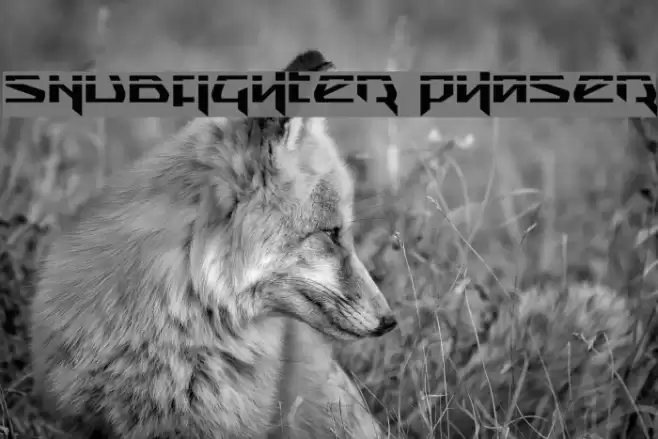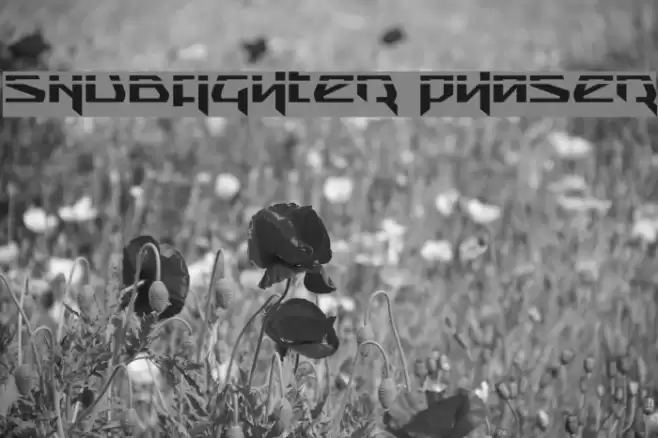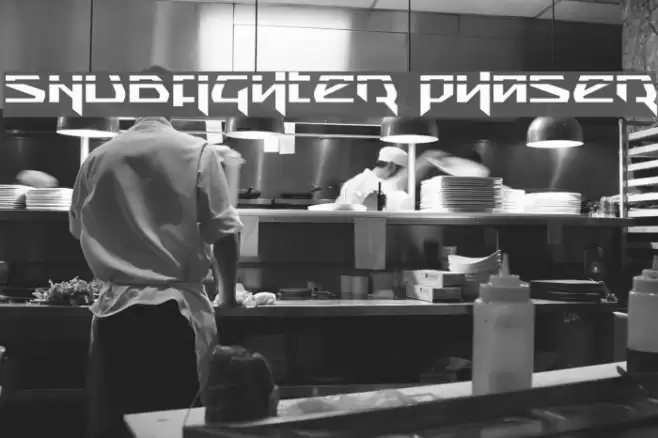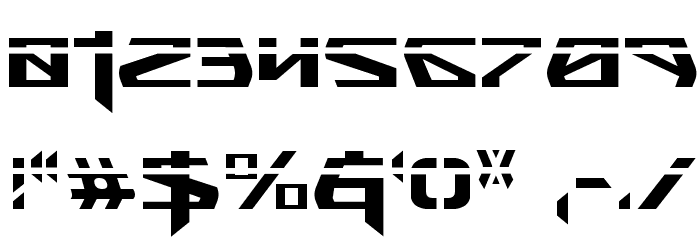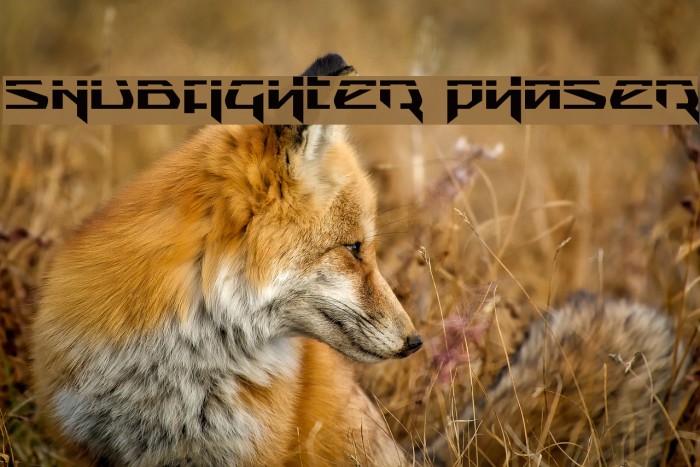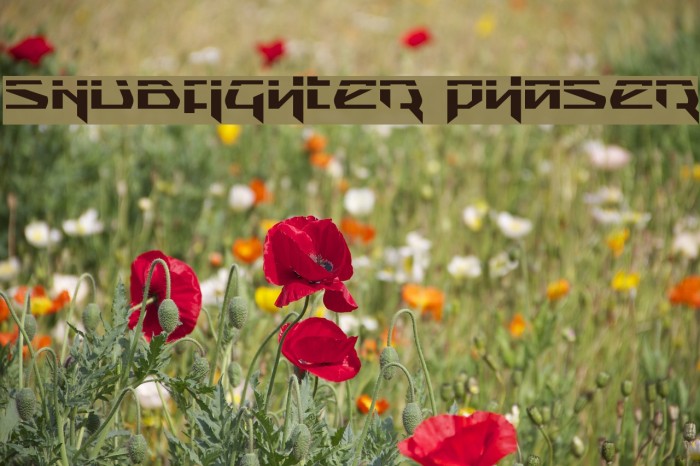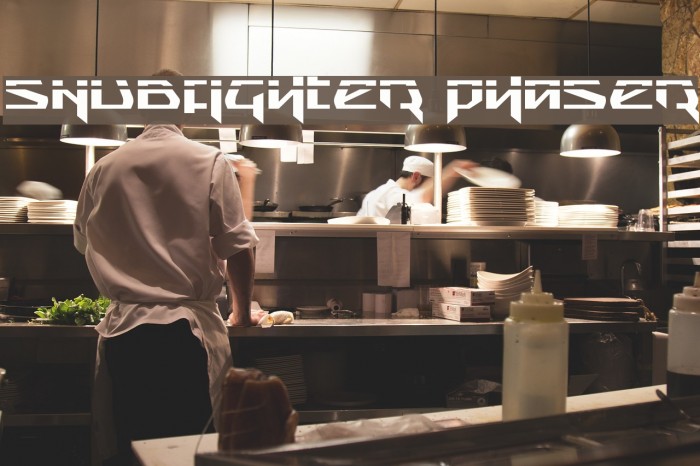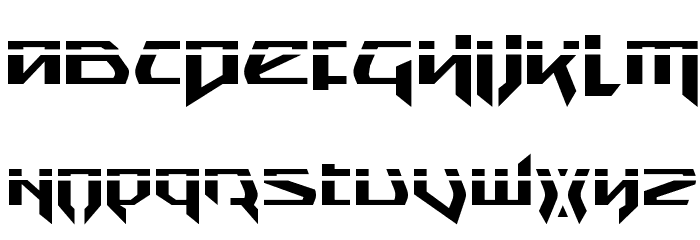
Snubfighter Phaser Font
Snubfighter Phaser Description
This font features a futuristic and angular design, characterized by sharp edges and geometric shapes. The uppercase and lowercase letters share a consistent style, with a bold and striking appearance. The numerals and special characters maintain the same angular aesthetic, making the font suitable for projects that require a modern and edgy look. The overall design is reminiscent of sci-fi themes, with a strong emphasis on straight lines and pointed corners, creating a sense of movement and dynamism.
A futuristic, angular font with sharp edges and geometric shapes from Sci-fi fonts.
- Proposed Projects: Ideal for sci-fi themed posters, video game titles, tech branding, and futuristic design projects.
- Overall Style: Futuristic